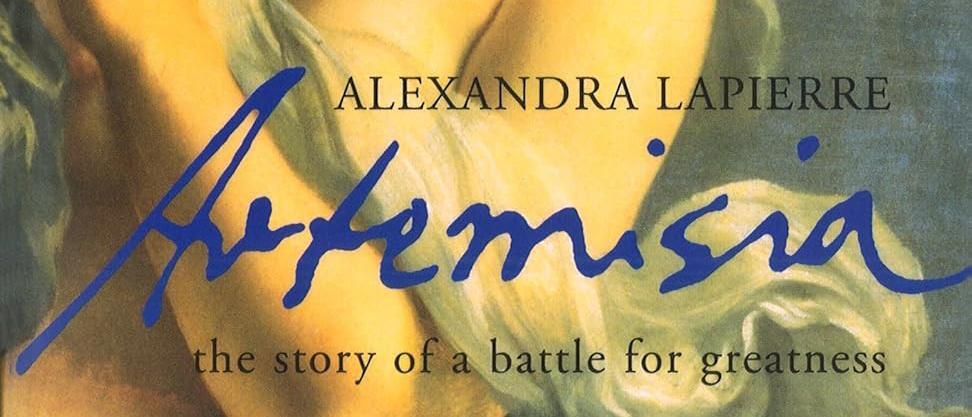
Font Identification: 17th century Italian painter Artemisia Gentileschi signature
We're trying to find as close a match to the 17th century Italian painter Artemisia Gentileschi signature (see reference on book).
It doesn't have to be an exact match but something that has the spirit and energy of her signature and that feels like it was created in ink, feel rough with a similar weight.